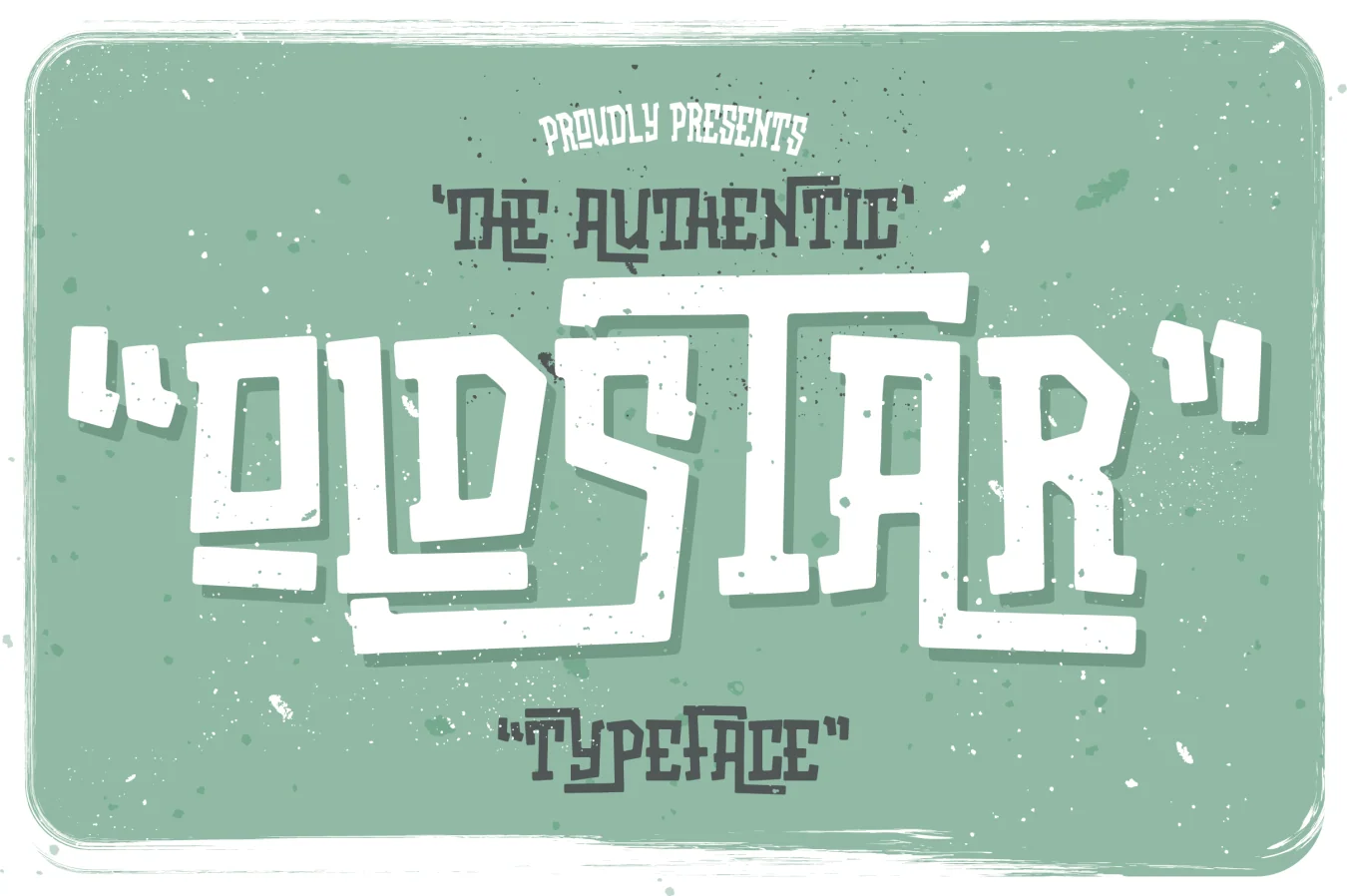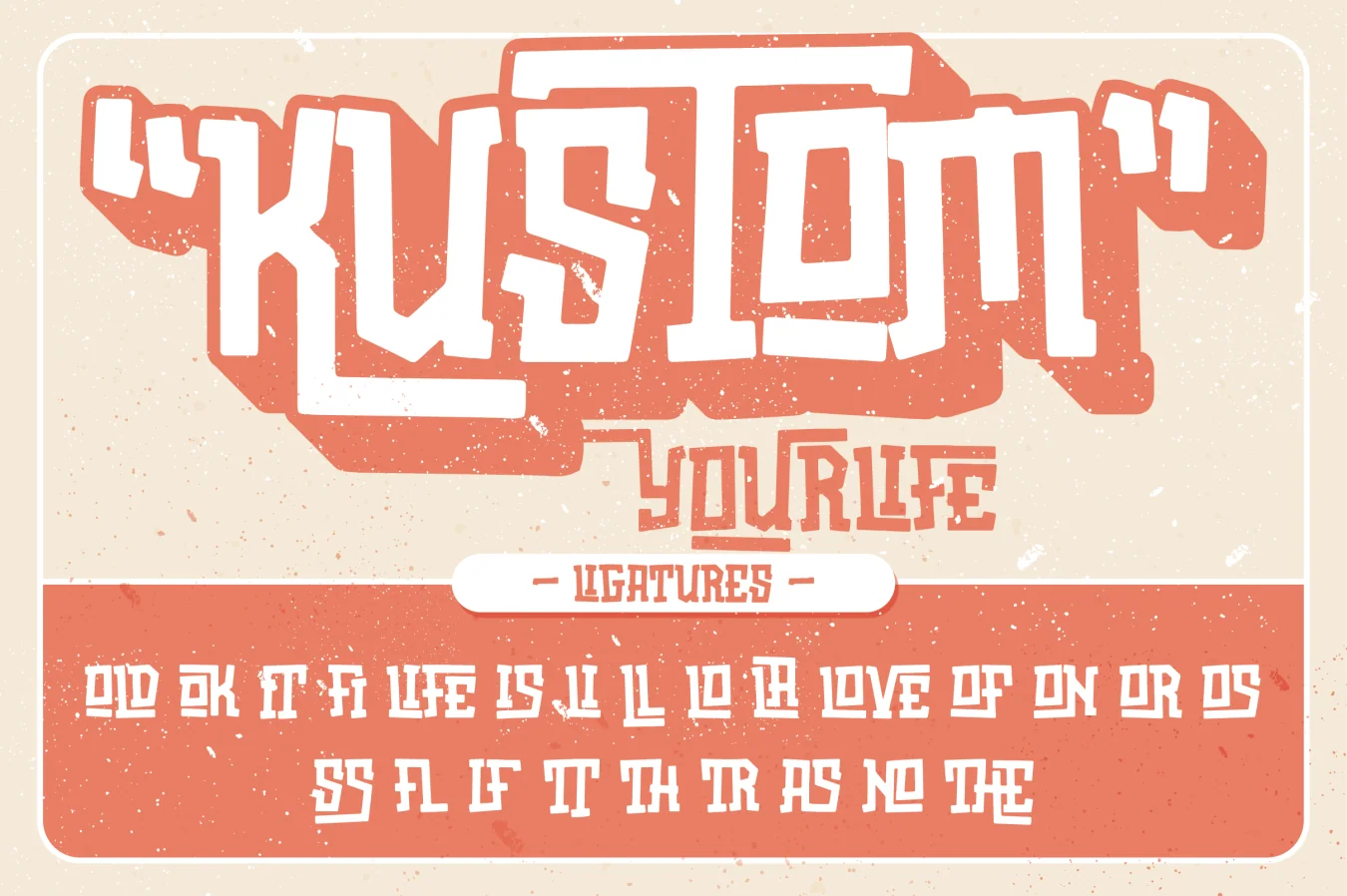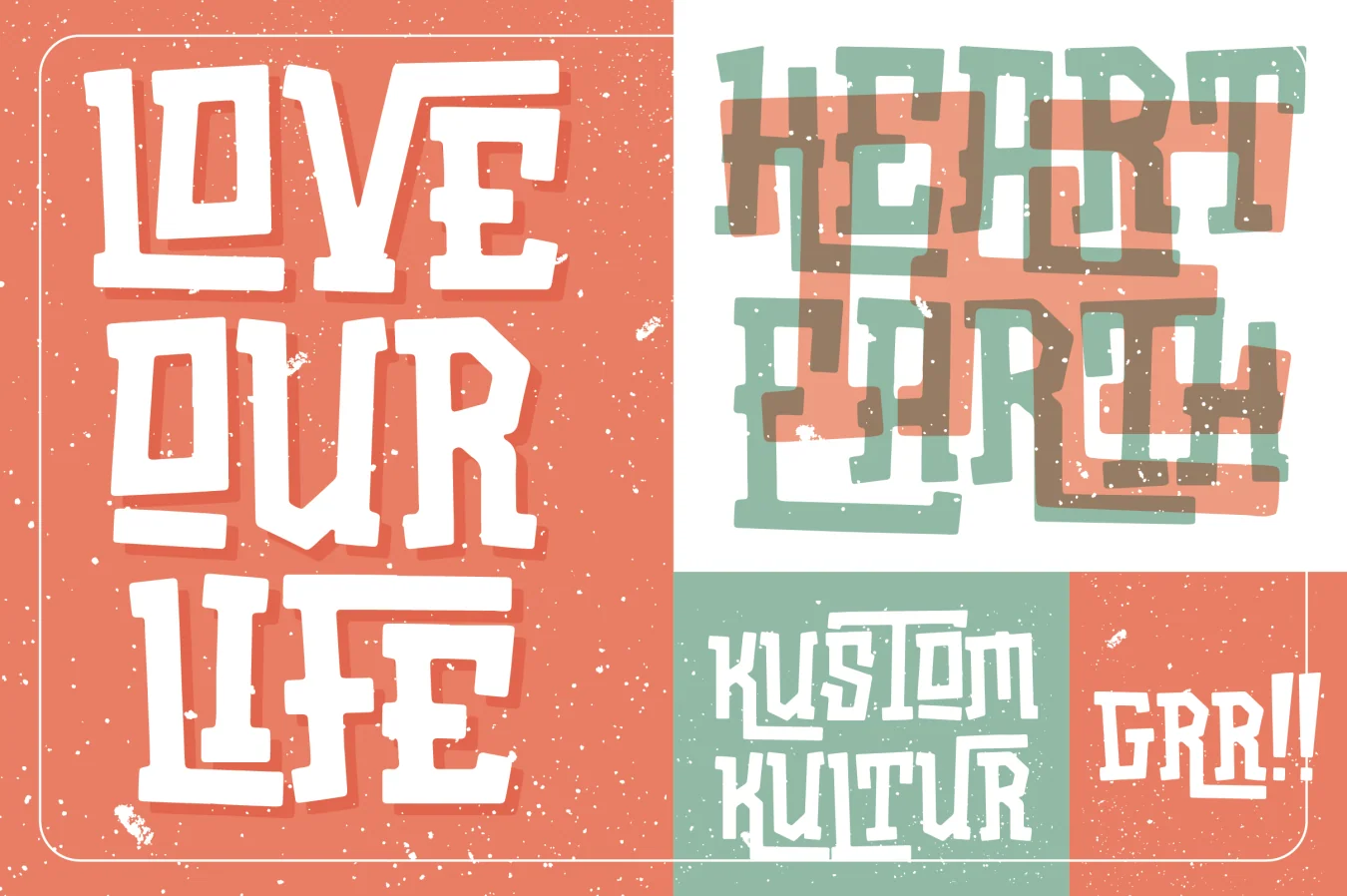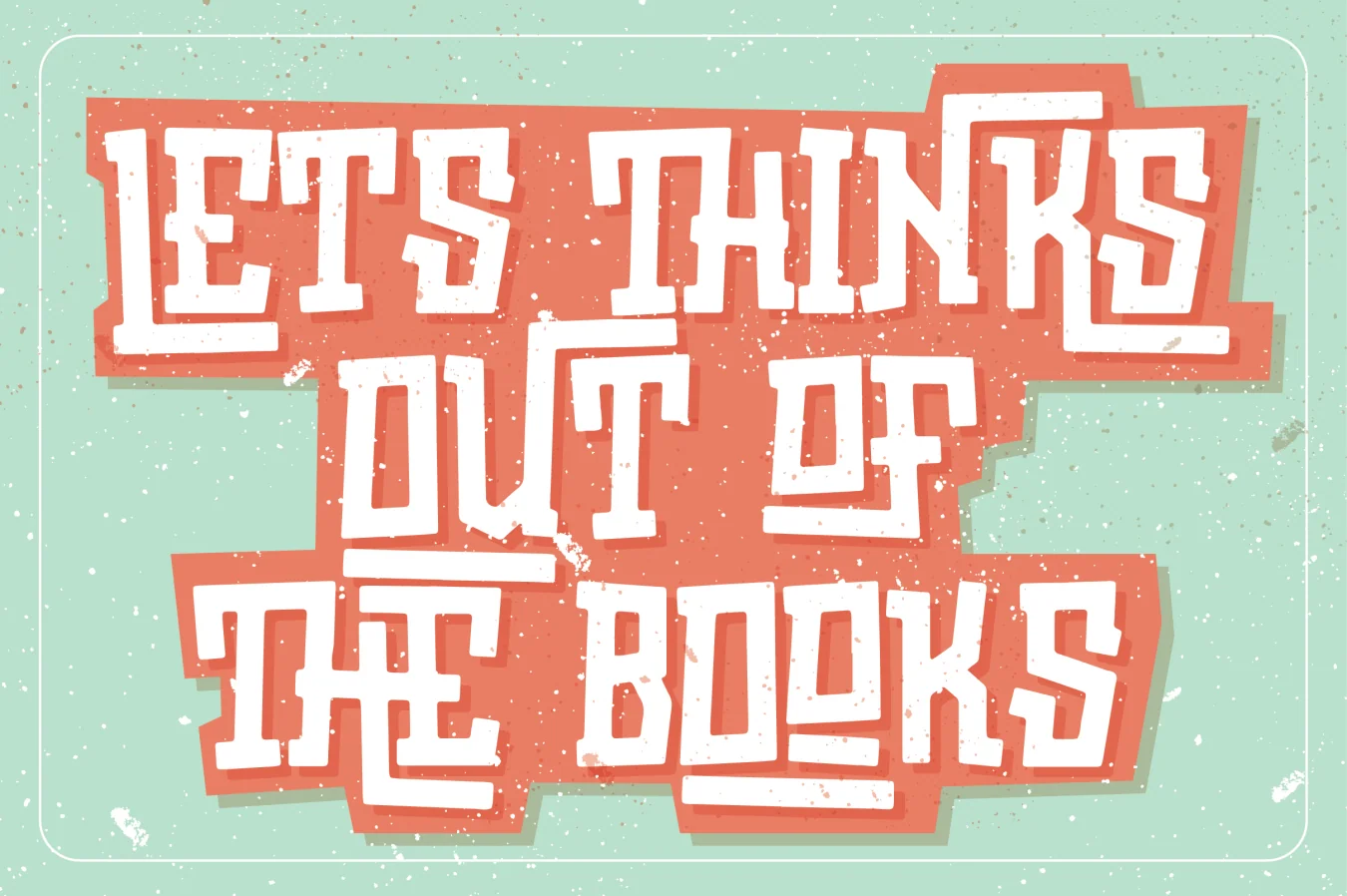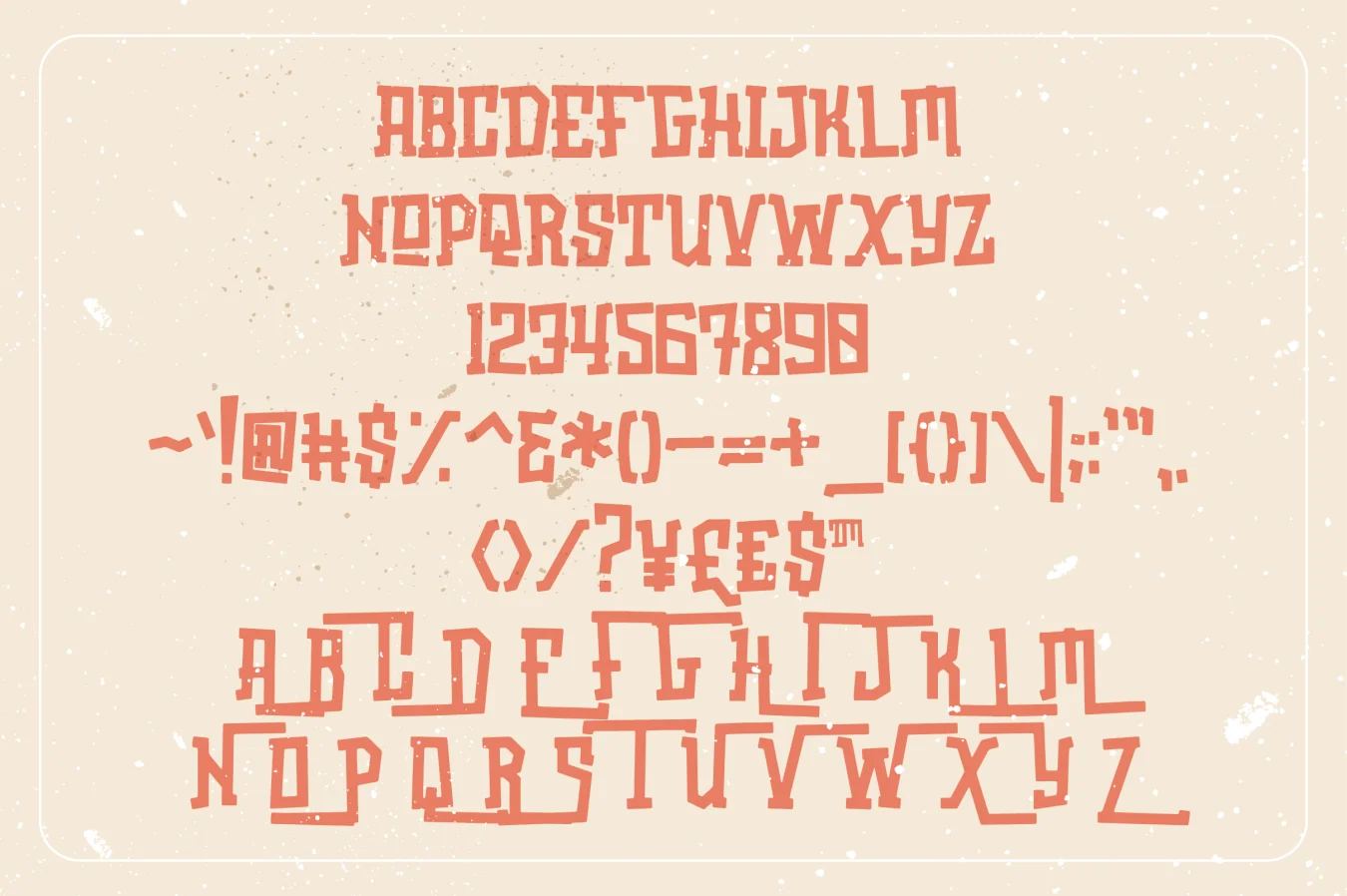
Oldstar Typeface
Handcrafted typeface with authentic retro style
Symbol glyphs provided
Capital letters exclusively
Ligature characters
Oldstar Typeface is crafted for custom culture enthusiasts, drawing strong inspiration from vintage and retro styles. Use it to design logos with ligatures and stylistic details, and easily adjust the letterforms into shapes that match your vision.